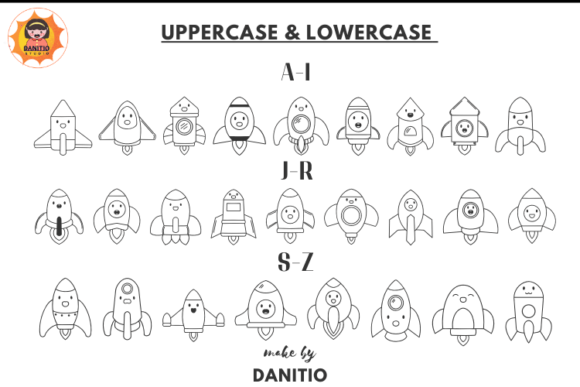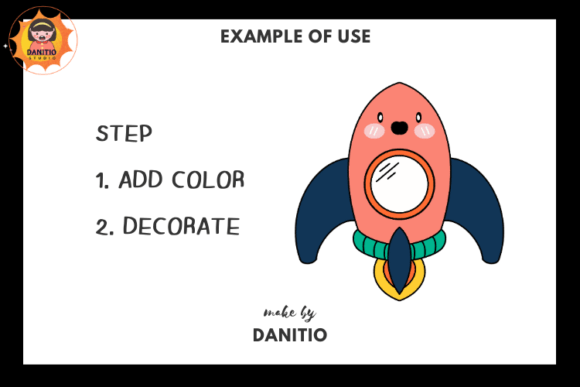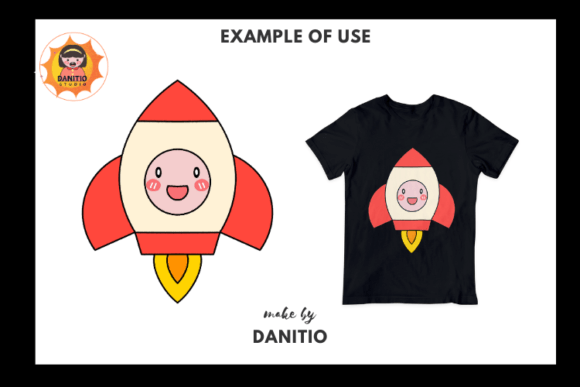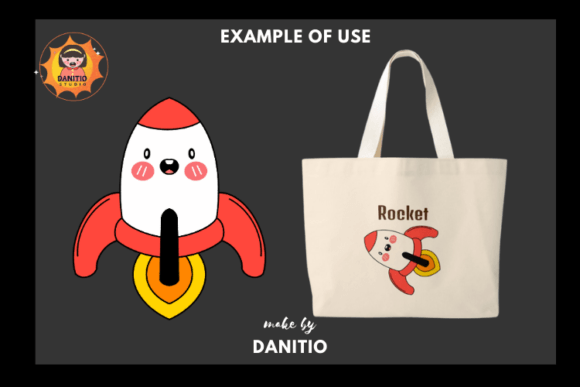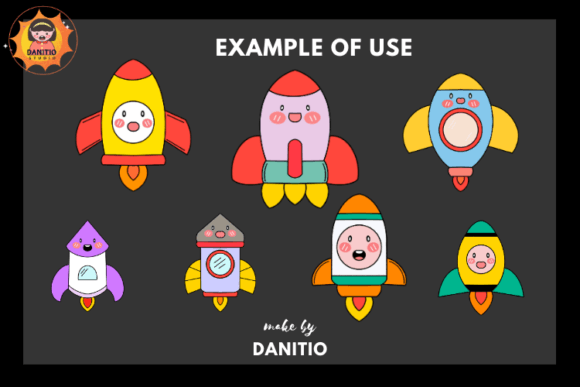
Introduction to Rockets Font
Rockets is a dingbat font that I drew myself, with hearts, and various cute style rockets.
This allows you to design your work to suit your work, which is ideal for craftsmen and graphic artists Use various tools such as colored pearls, drinking glasses, mugs, decorations, making t-shirts, tote bags, or any product.
Key Features of Rockets Font